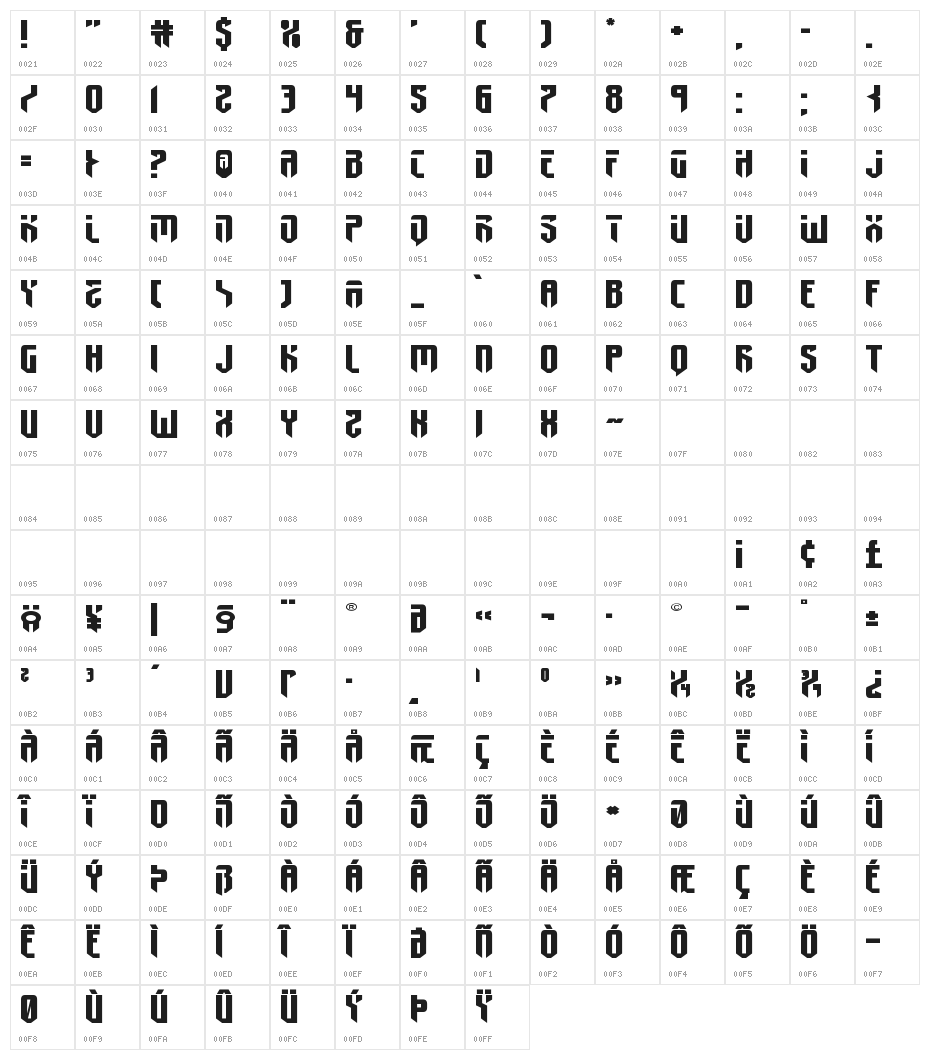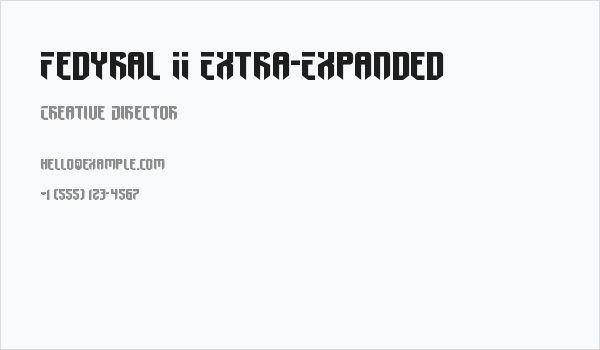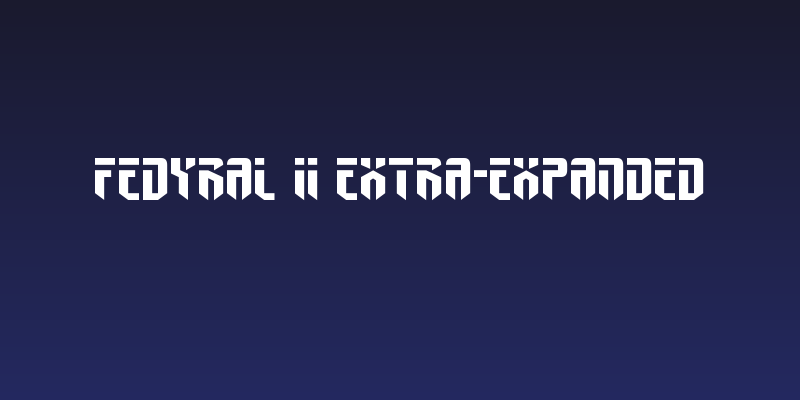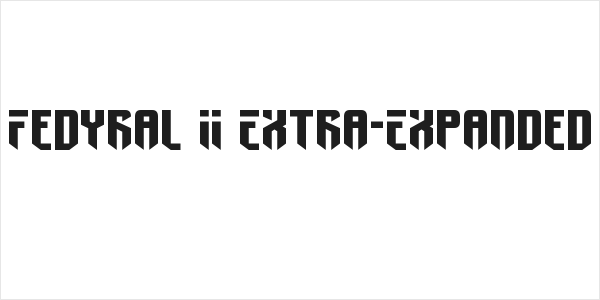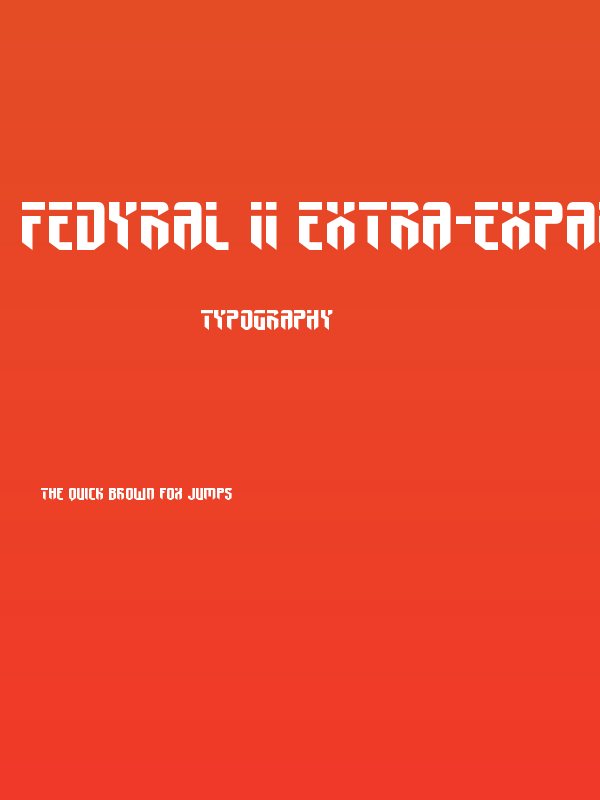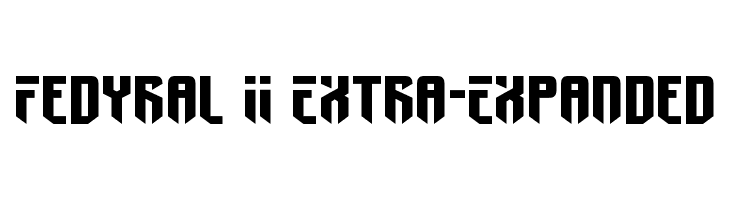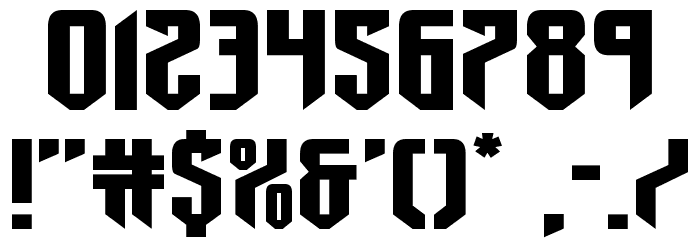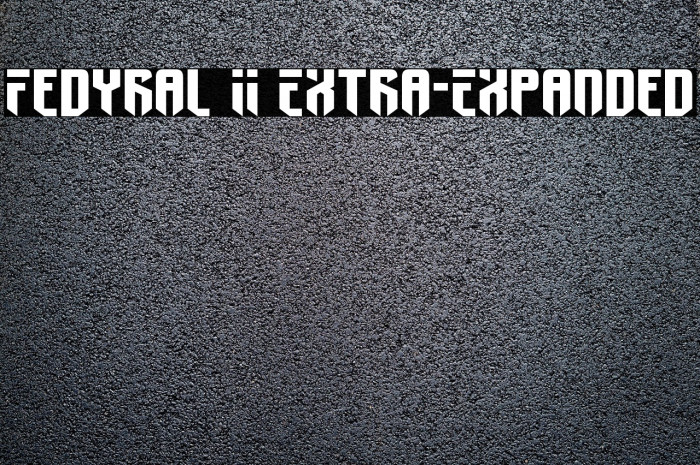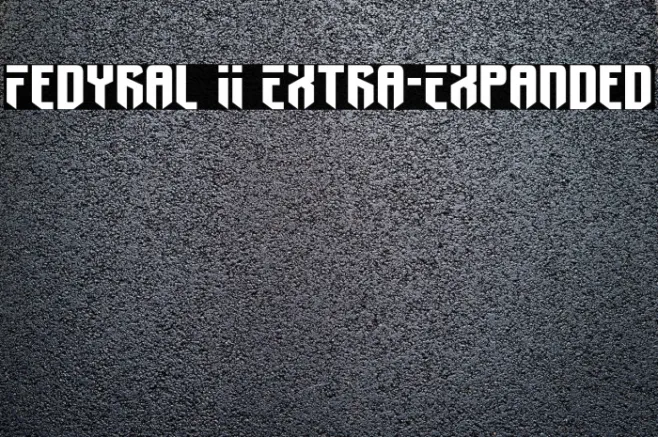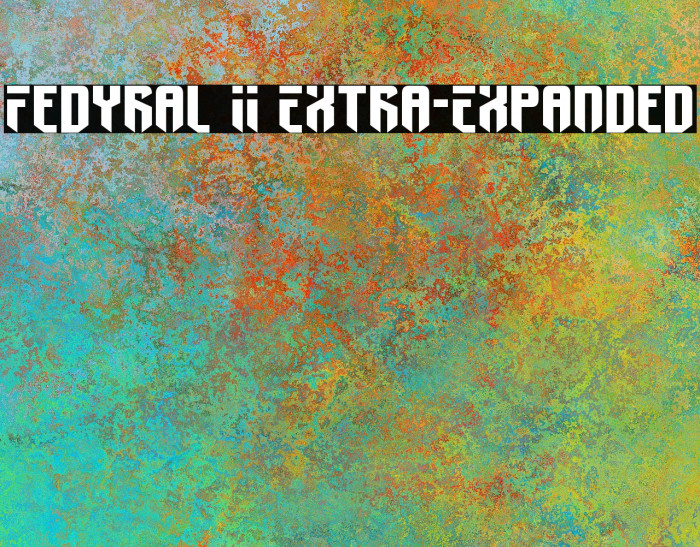
Fedyral II Extra-Expanded Font
Fedyral II Extra-Expanded Description
This font features a bold, geometric design with sharp angles and a futuristic aesthetic. The characters are highly stylized, with a blocky appearance that emphasizes their expanded width. The uppercase letters are particularly striking, with a uniform height and consistent line thickness that gives them a strong, commanding presence. The numerals and special characters maintain this bold style, ensuring a cohesive look across all glyphs. This font is ideal for projects that require a modern, edgy feel, such as technology branding, sci-fi themed designs, or video game titles.
| Proposed Projects | Ideal for technology branding, sci-fi designs, video game titles, and modern posters. |